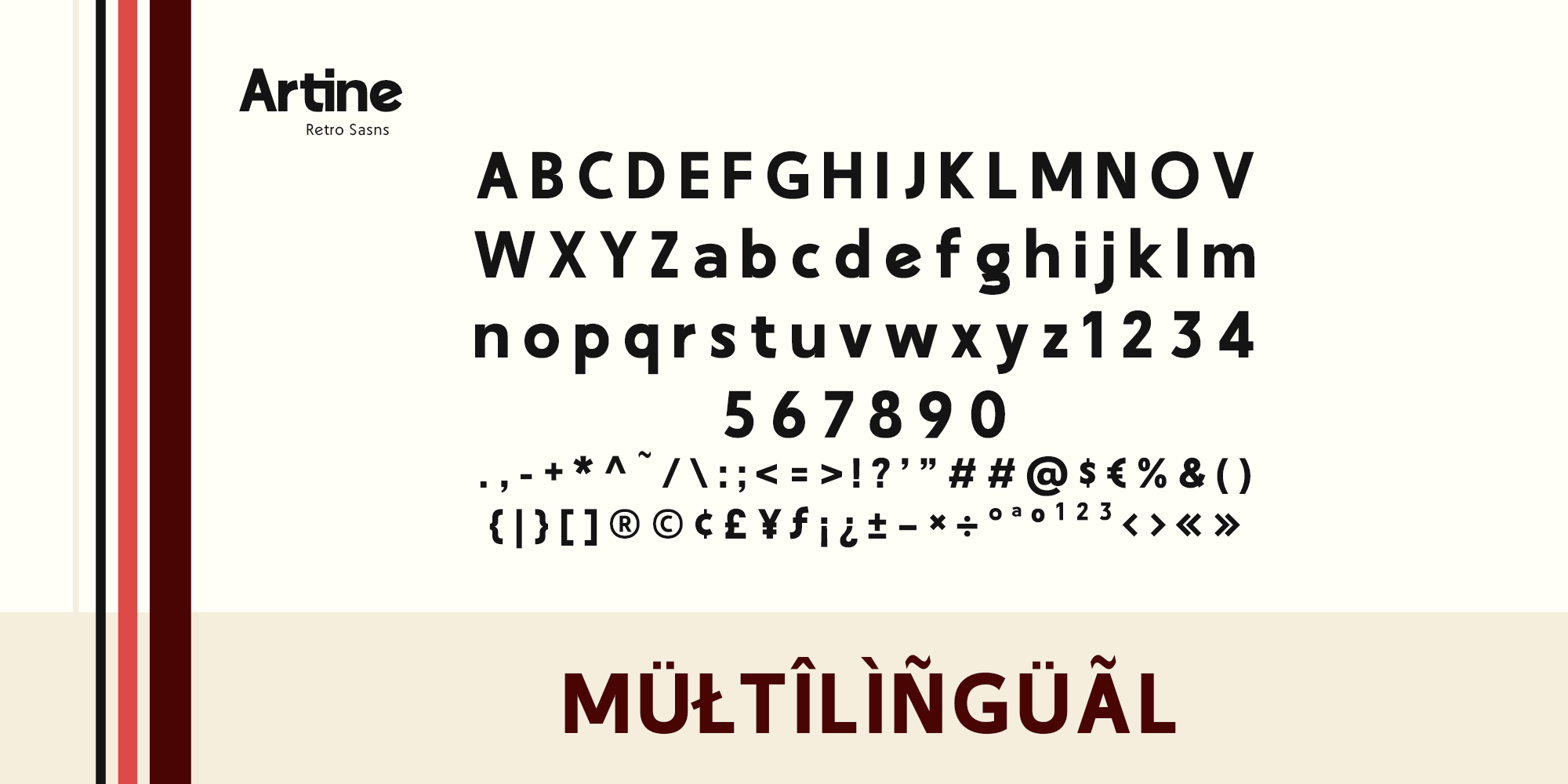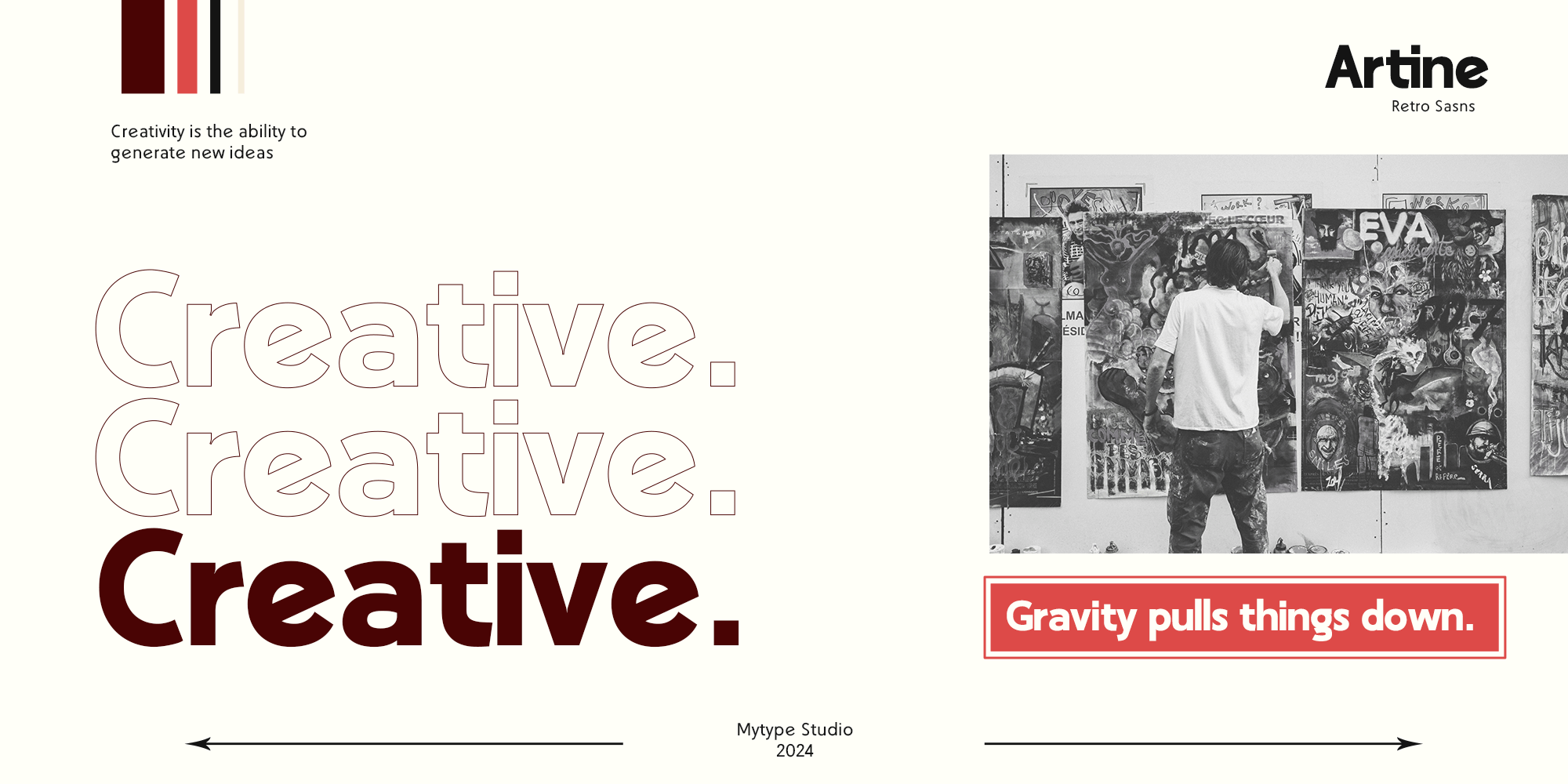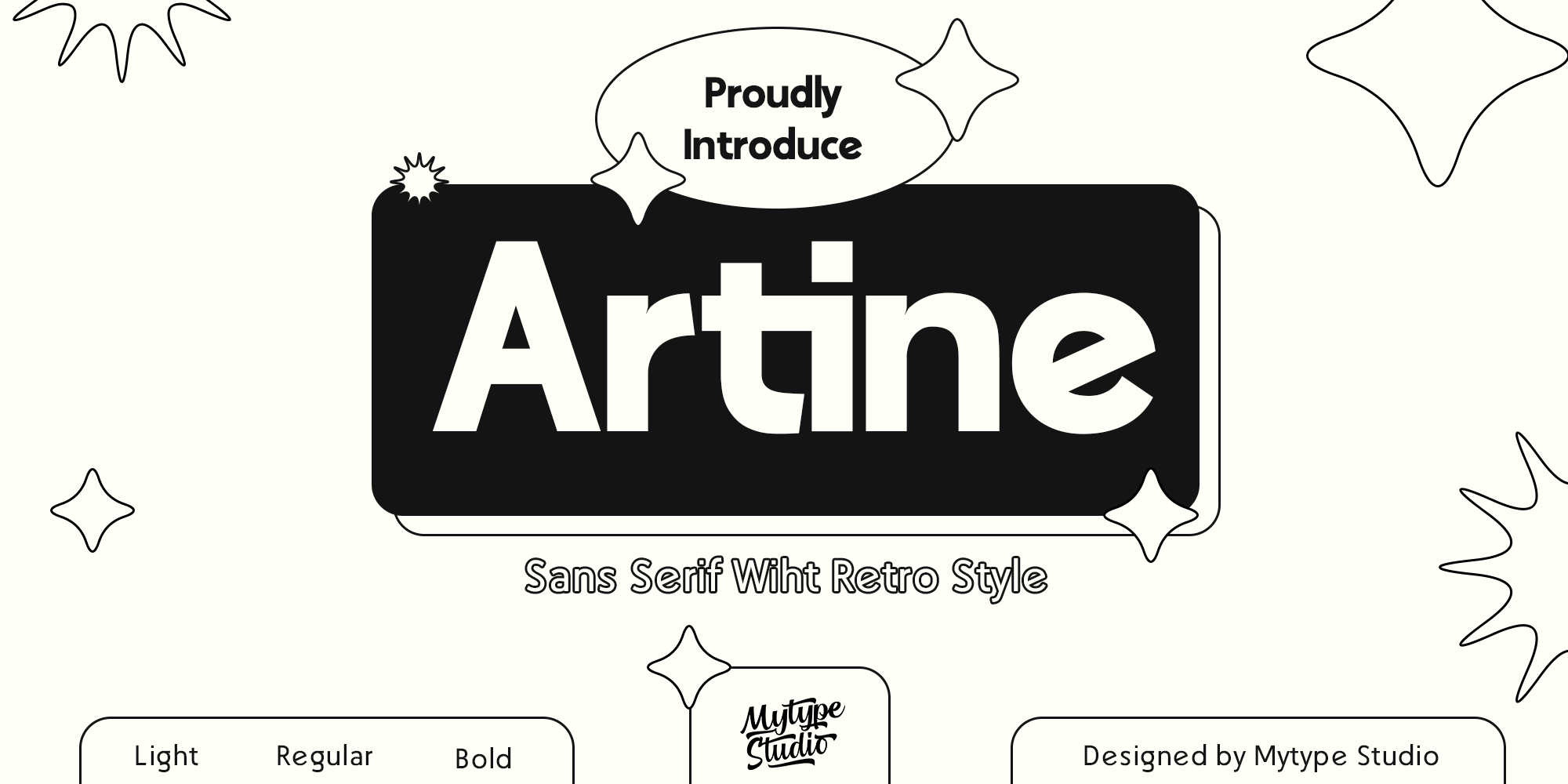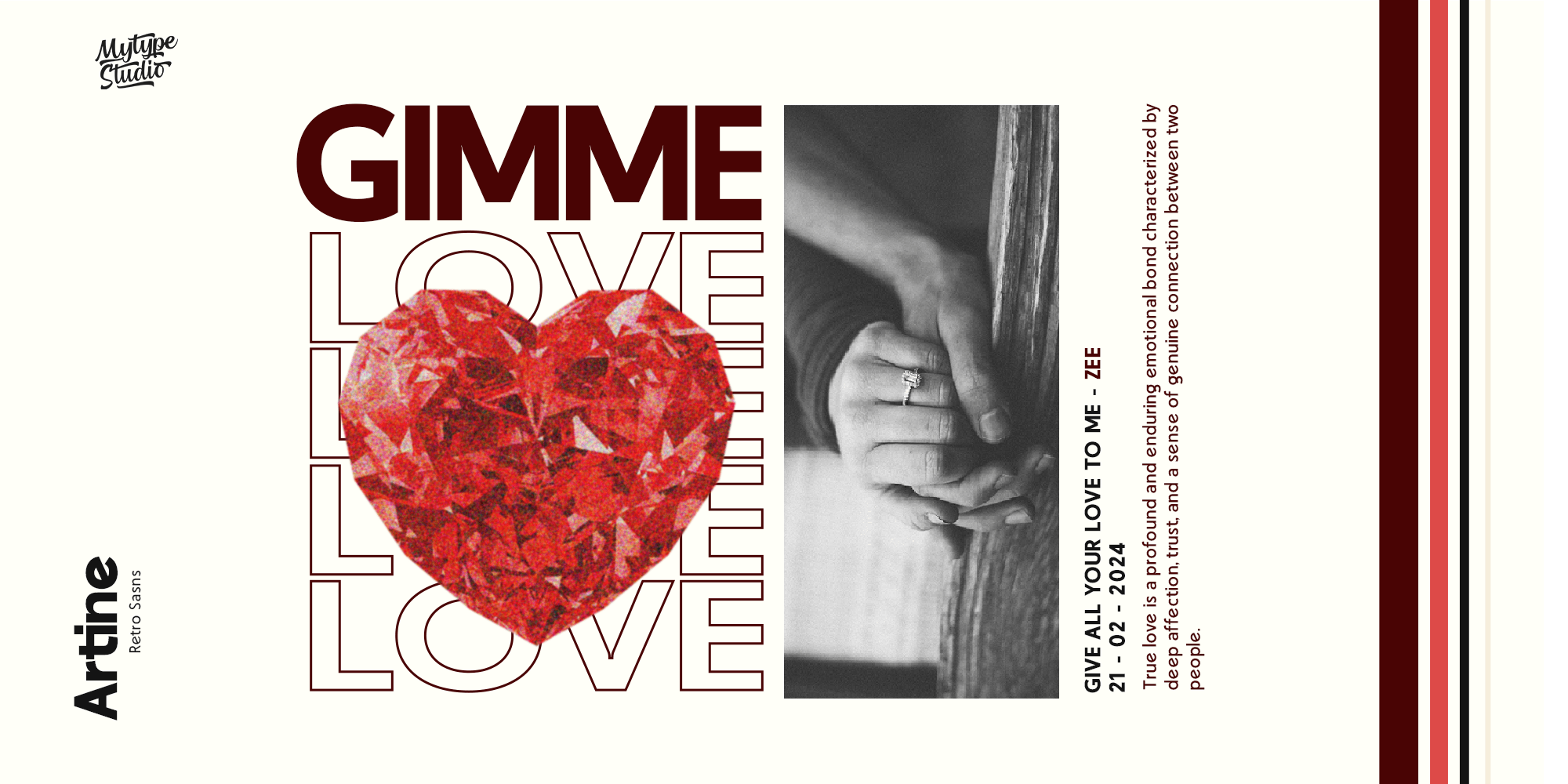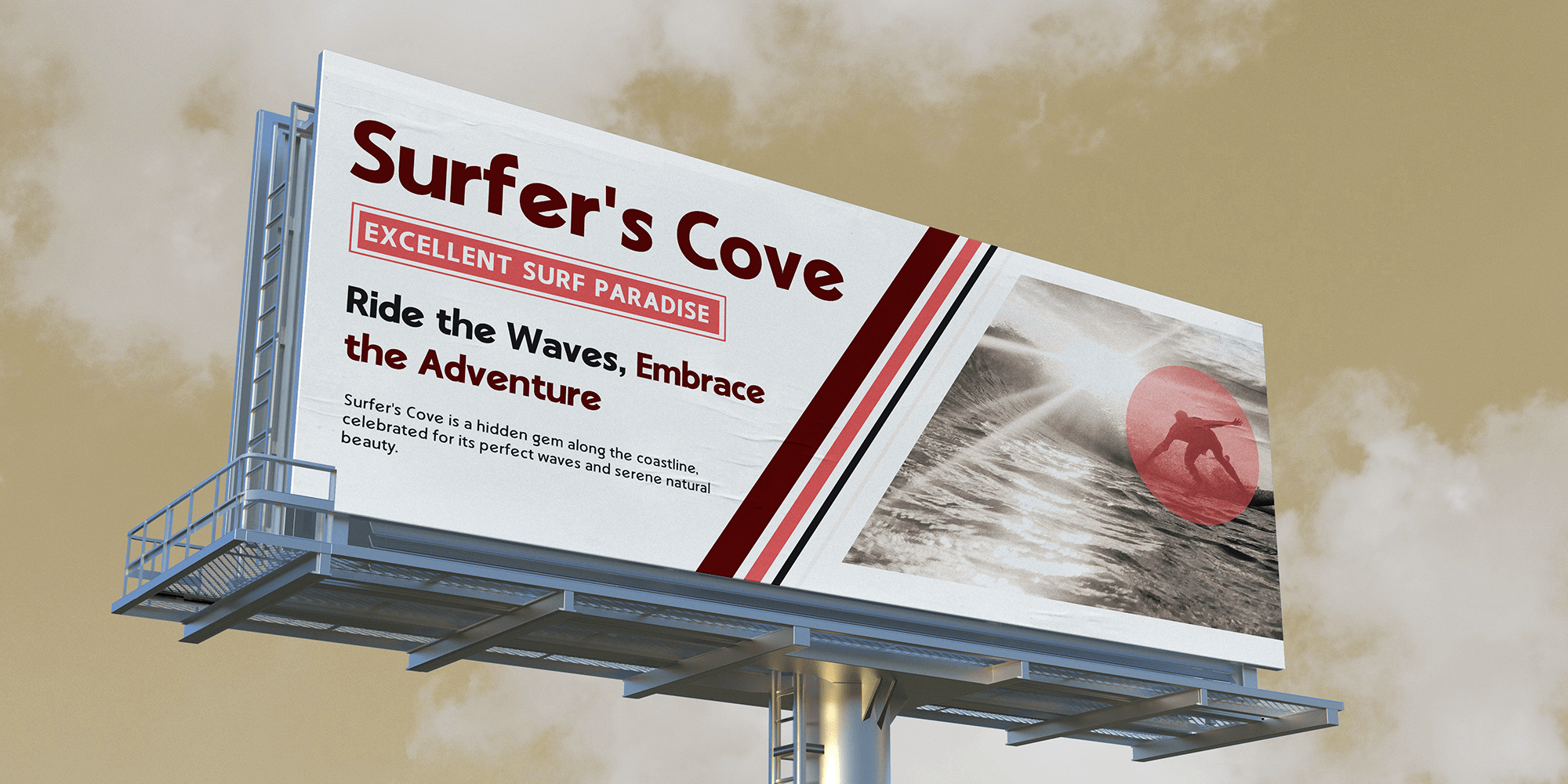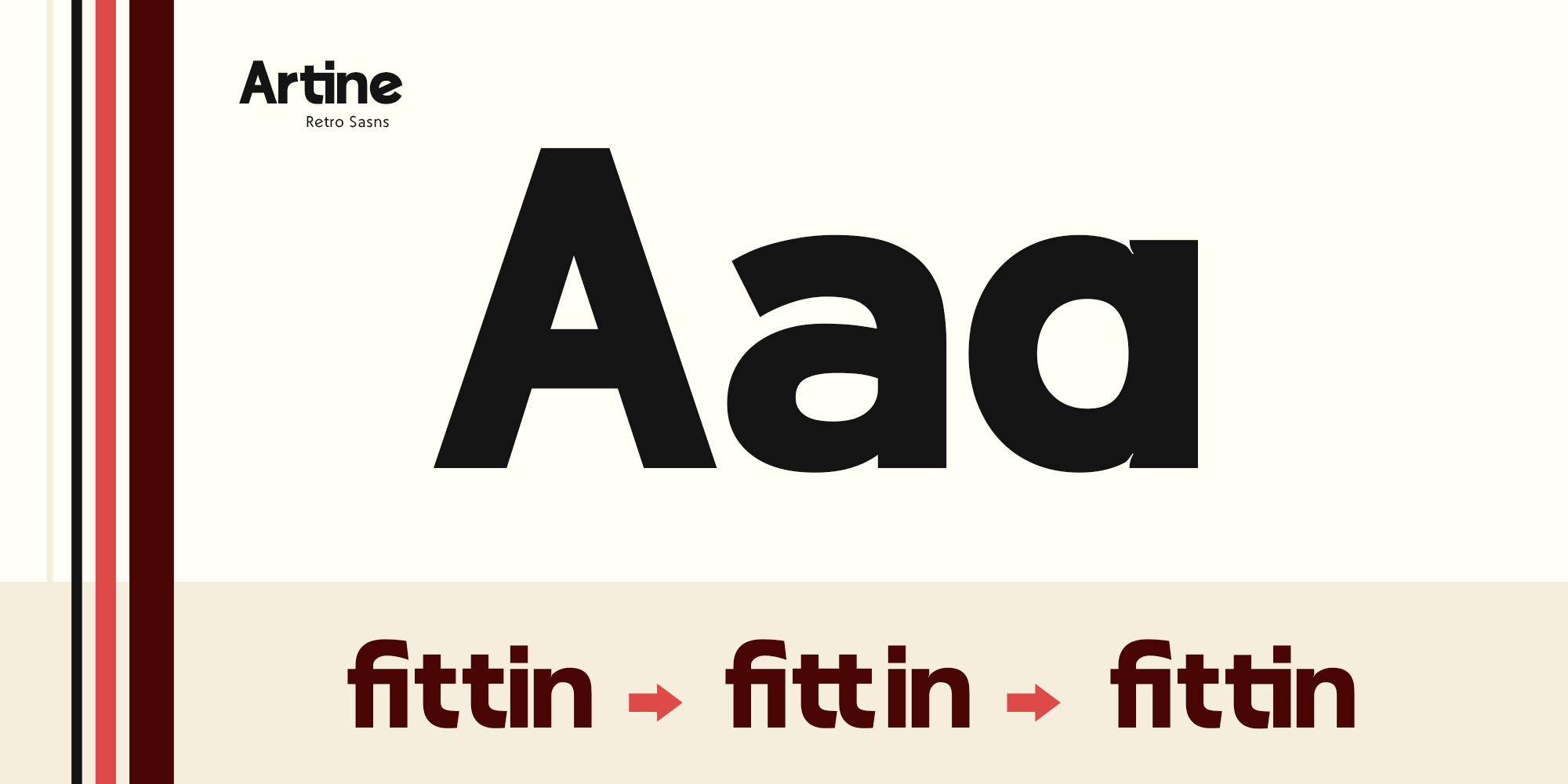
Artine
sans-serif3 Styles
About this Typeface
Artine stands out with its timeless appeal and adaptability. It’s not just a font; it’s a statement piece that brings a touch of elegance and fun to any project. Designed by Mytype Studio, this typeface is crafted with attention to detail, ensuring high quality and usability.
DesignerMytype Studio
Categorysans-serif